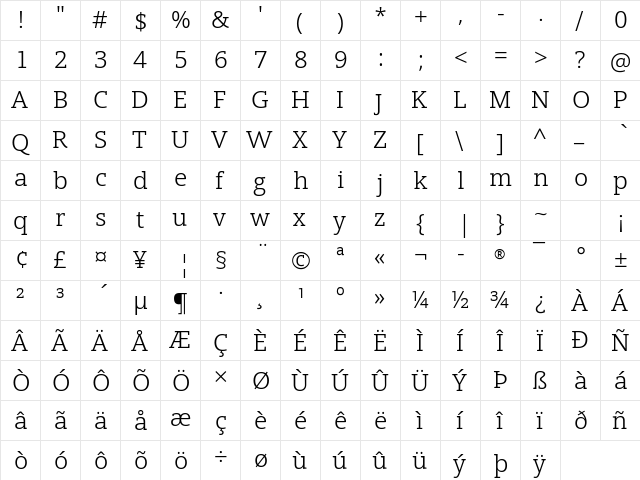
Open Serif Book
| Foundry | Matteson Typographics |
| Designer | Steve Matteson |
Design Context for Open Serif Typeface
Open Serif brings classic typographic sensibility to the table — its serifs and measured letterforms reflect centuries of print heritage.
Pro Tip: Use Open Serif for editorial body copy and considered headline work. Pair with a neutral sans for UI elements or captions to create a classic hierarchy.